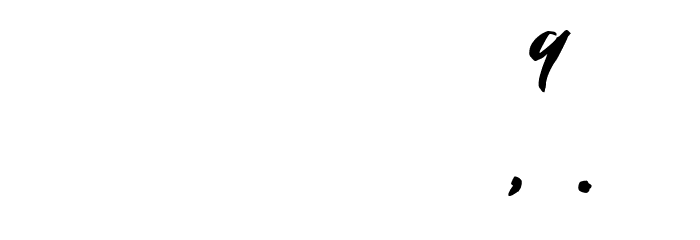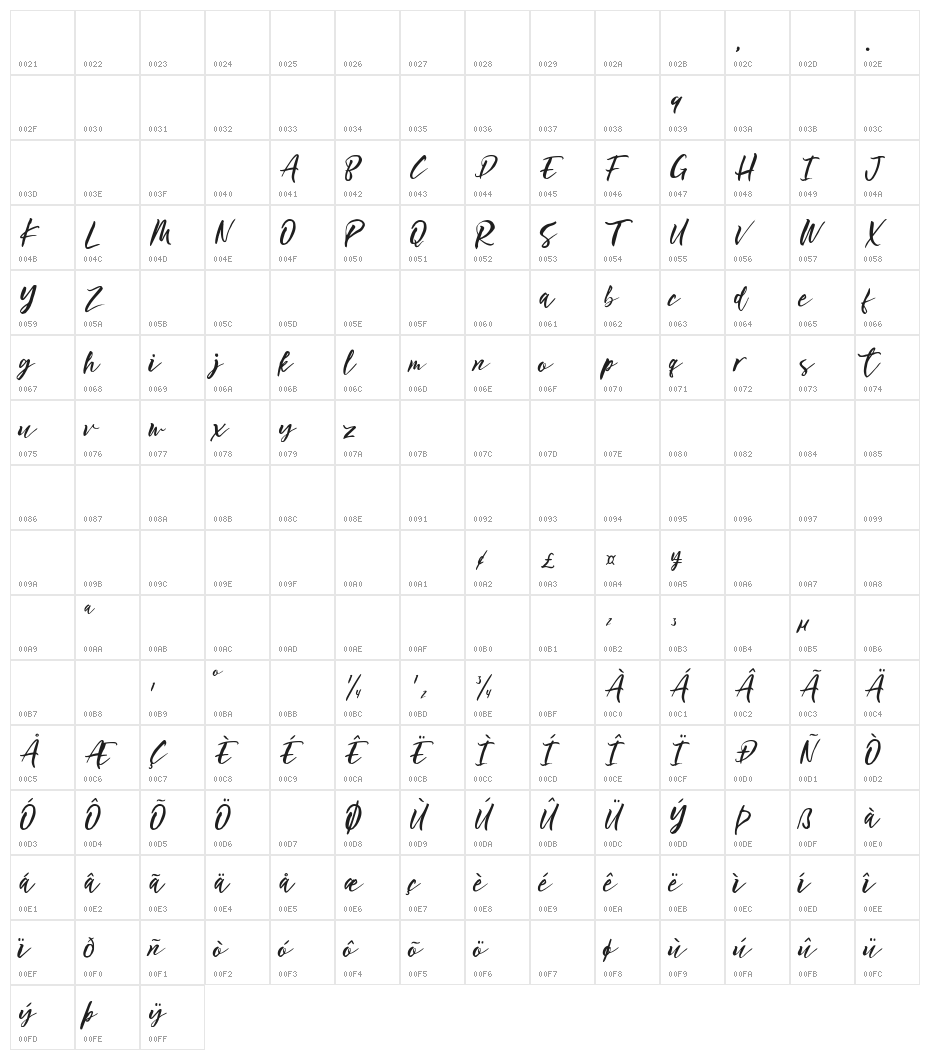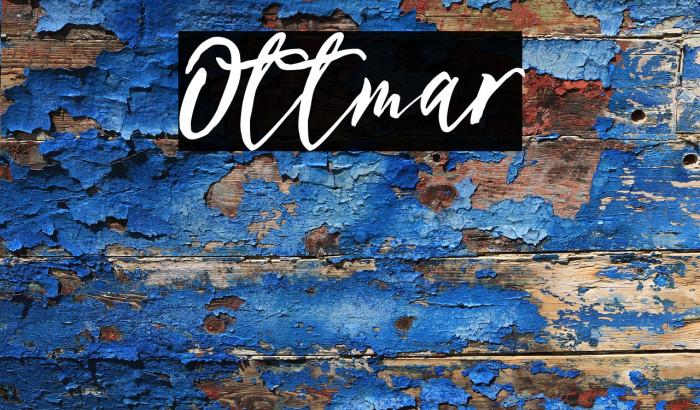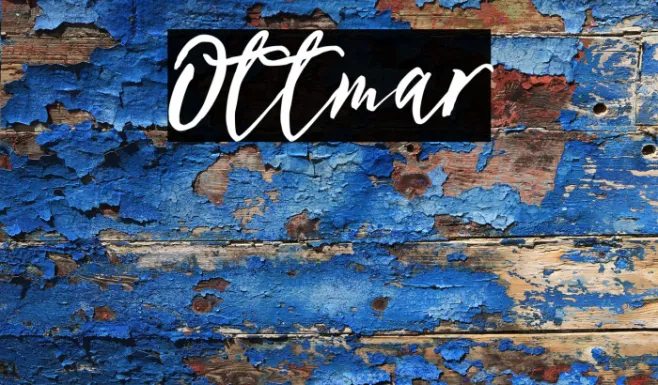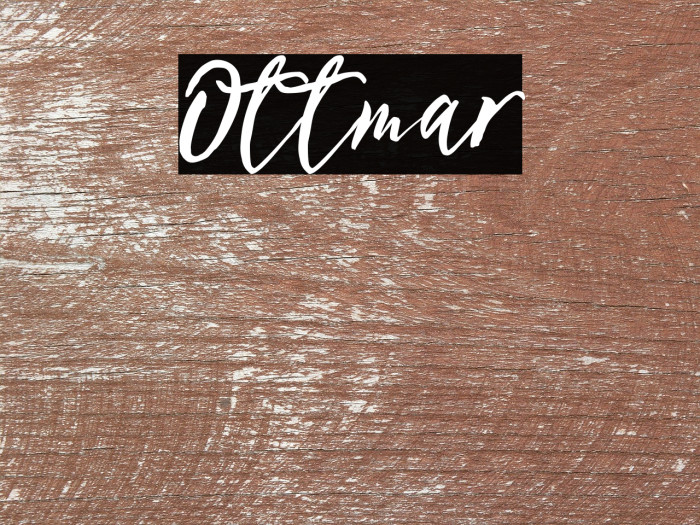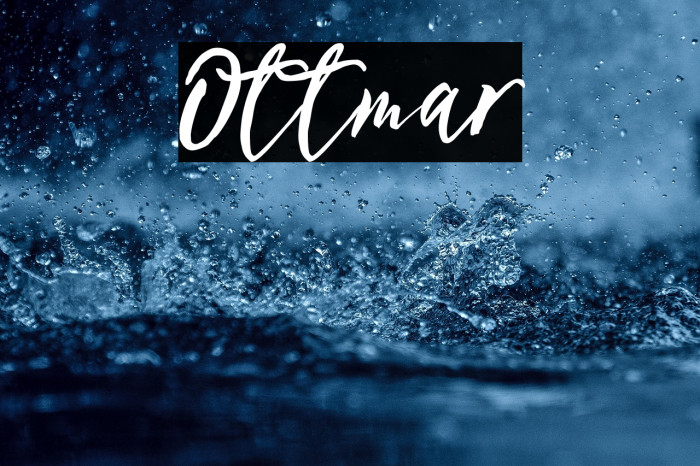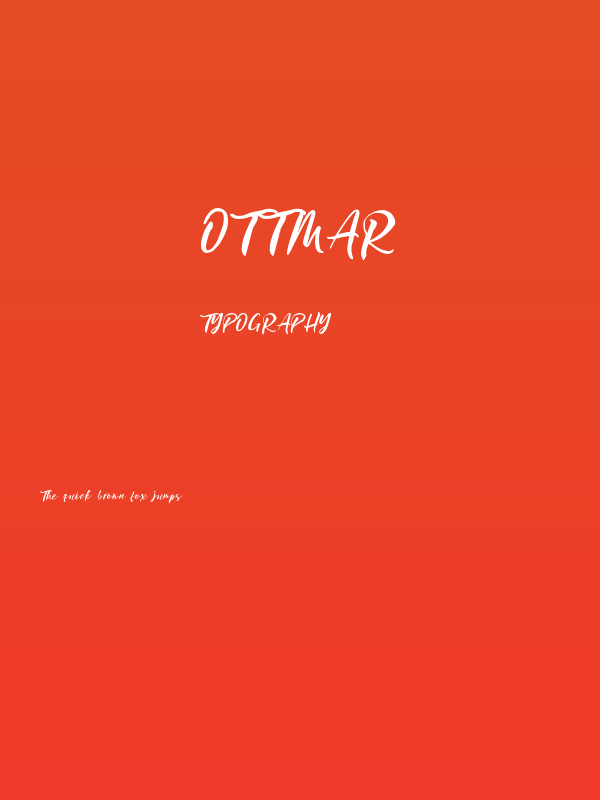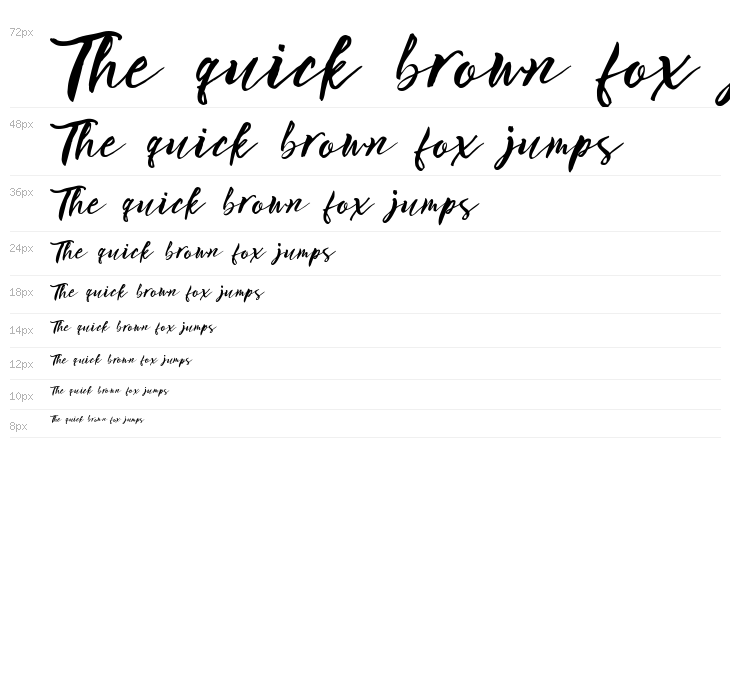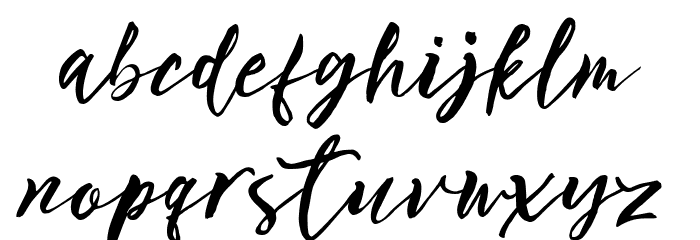
Ottmar Font
Ottmar Description
This font exudes a dynamic and expressive style, characterized by its fluid, handwritten appearance. The letters are crafted with a brush-like quality, giving them a sense of movement and energy. The strokes vary in thickness, adding a lively contrast that enhances readability while maintaining an artistic flair. The uppercase letters are bold and commanding, while the lowercase letters maintain a consistent flow, creating a harmonious balance. This font is perfect for projects that require a personal touch or a creative edge, such as invitations, branding, or artistic posters.
| Proposed Projects | Ideal for invitations, branding, artistic posters, and creative designs. |